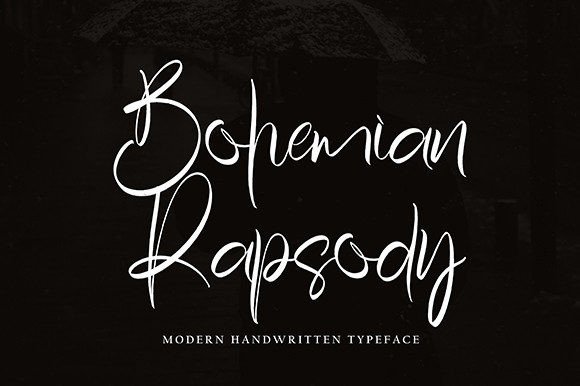
Journey into the realm of exquisite typography with Bohemian Rapsody Font, a captivating script font that exudes elegance and artistic charm. This enchanting creation from Pineungtype & Missinklab is a true masterpiece, meticulously crafted to elevate your creative projects to new heights.
Immerse yourself in the world of Bohemian Rapsody, where every letter dances with grace, flowing effortlessly from one to the next. Its enchanting curves and delicate strokes evoke a sense of timeless beauty, reminiscent of handwritten love letters and vintage calligraphy. Whether you're a fervent Instagrammer seeking to captivate your audience or a passionate crafter yearning to add a personal touch to your DIY masterpieces, Bohemian Rapsody Font is your perfect companion.
With Bohemian Rapsody Font, your words will leap off the page, imbued with a touch of magic and whimsy. It's the perfect font for adding a personal touch to your social media posts, creating stunning logos and branding materials, or crafting heartfelt invitations and greeting cards. Its versatility knows no bounds, making it an essential tool for graphic designers, content creators, and anyone who seeks to make a lasting impression.
Unlock your creative potential with Bohemian Rapsody Font, the ultimate font for those who dare to dream big and embrace the extraordinary. Let your imagination run wild as you craft enchanting designs that resonate with your audience, leaving them spellbound by your artistic prowess.